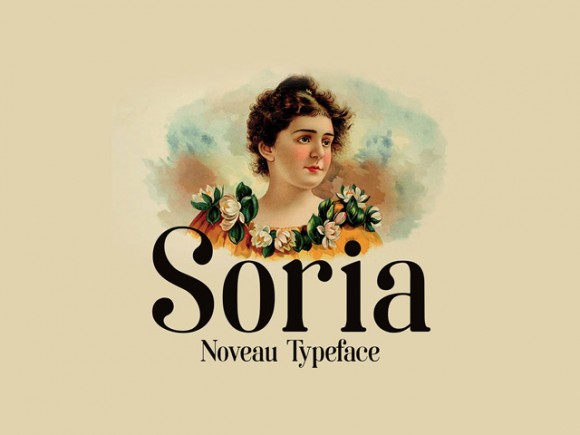
Free Soria A font inspired by Art Nouveau
Free soria a font inspired by art nouveau for any designer that is looking to display their design professionally. Freebies Bug has created this amazing and beautiful free typeface. Showcase your designs like a graphic design pro by adding a new touch with this cool font.